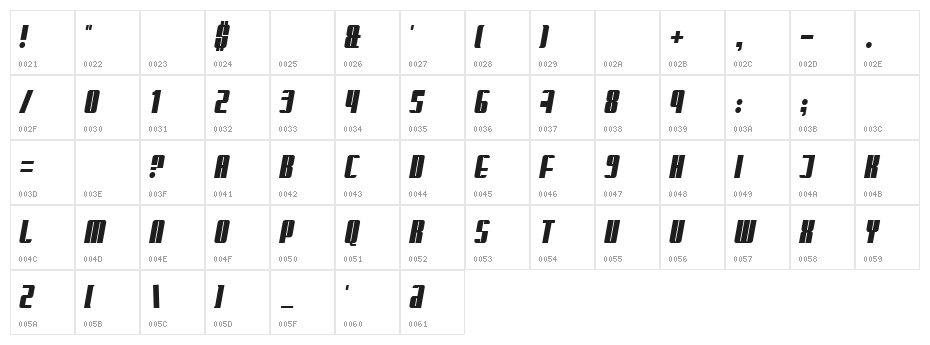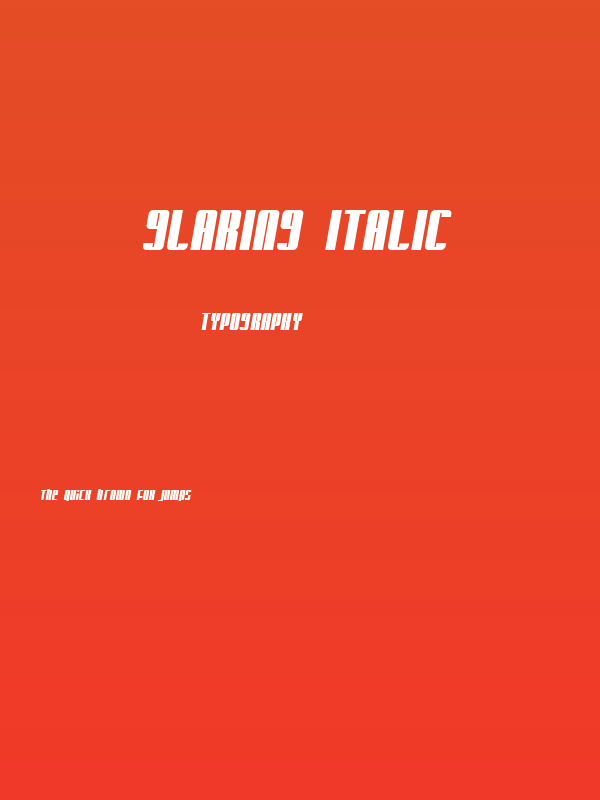
Glaring Italic Font
Glaring Italic Description
This font features a bold and dynamic italic style with a strong presence. The characters are slanted, giving a sense of motion and energy. The strokes are thick and consistent, providing a robust and impactful appearance. The uppercase and lowercase letters maintain a uniform height, enhancing readability while preserving the italicized effect. The numbers and special characters follow the same bold and slanted design, ensuring a cohesive look across all elements. This font is ideal for projects that require a striking and modern aesthetic.
| Proposed Projects | Ideal for sports branding, dynamic posters, modern advertising, and impactful headlines. |